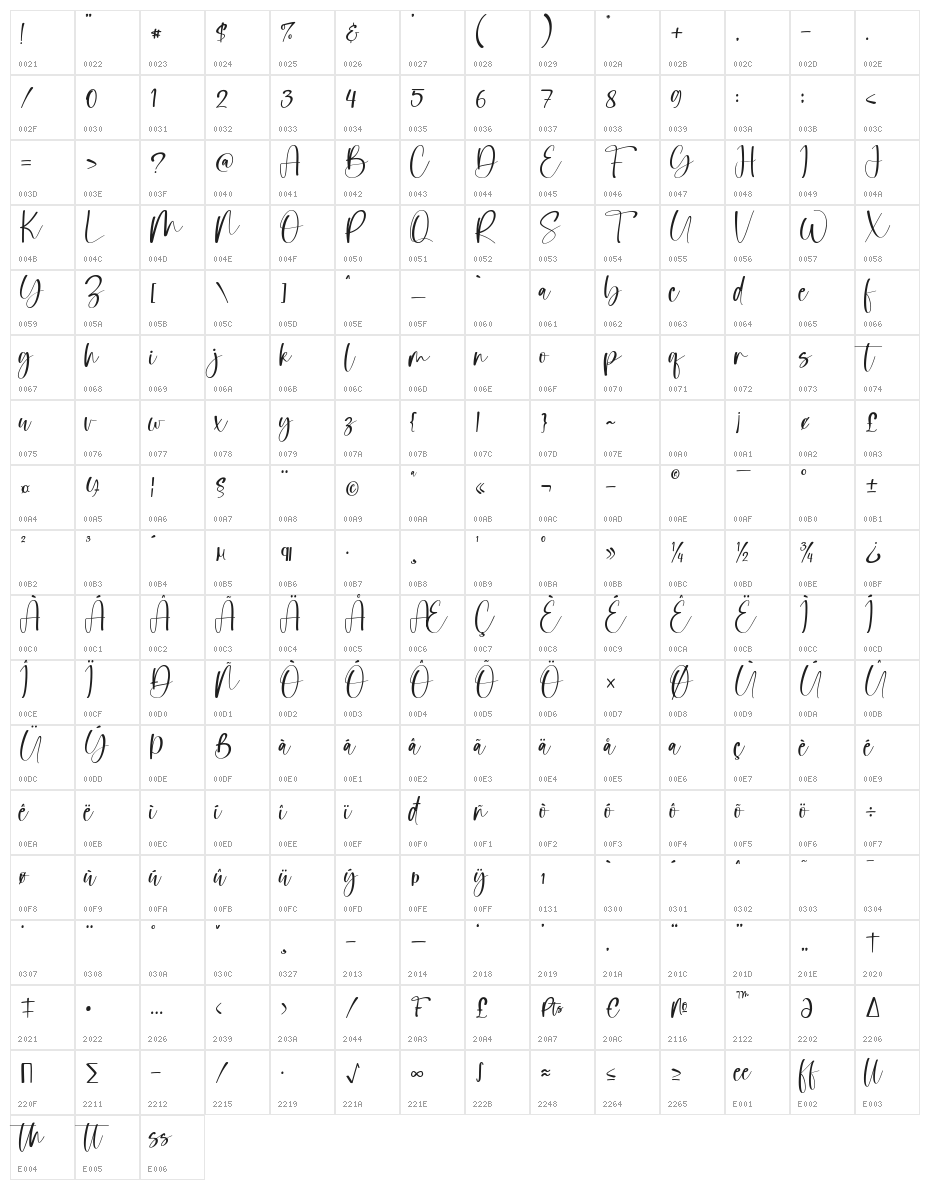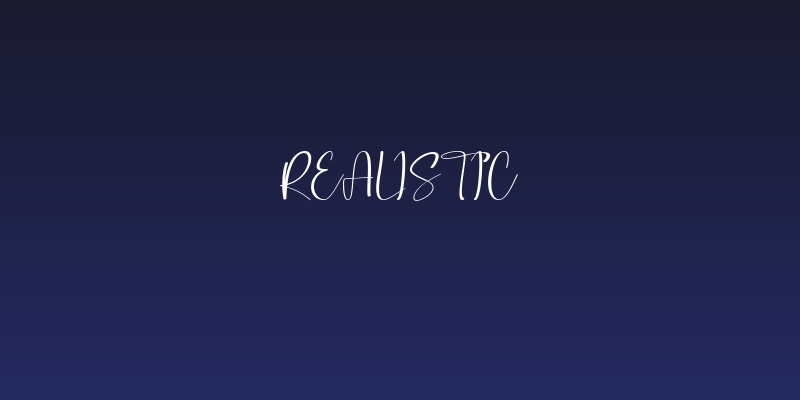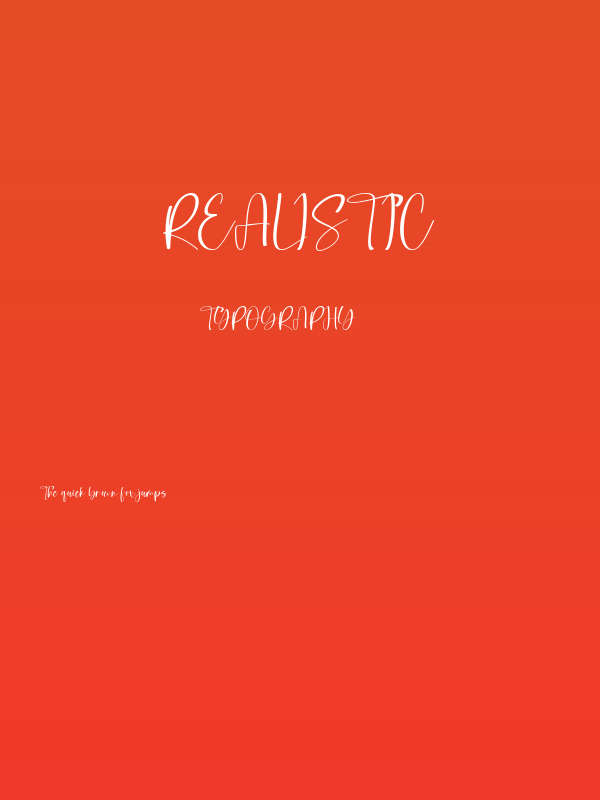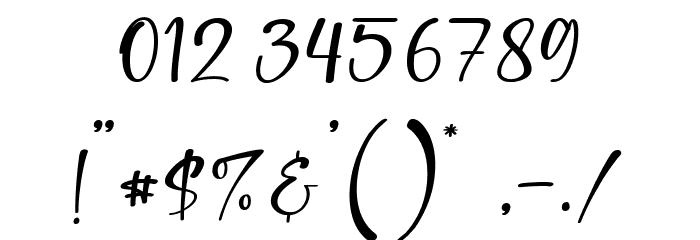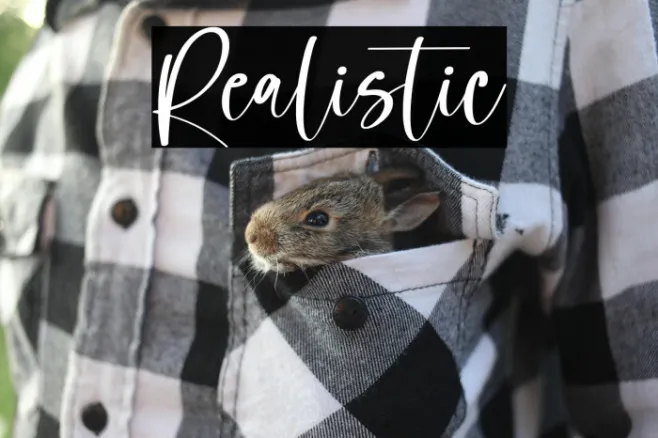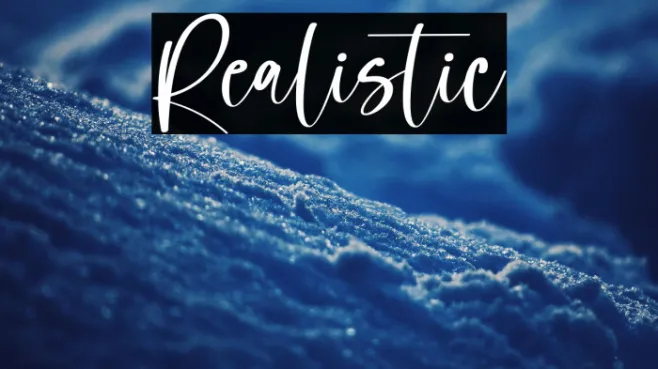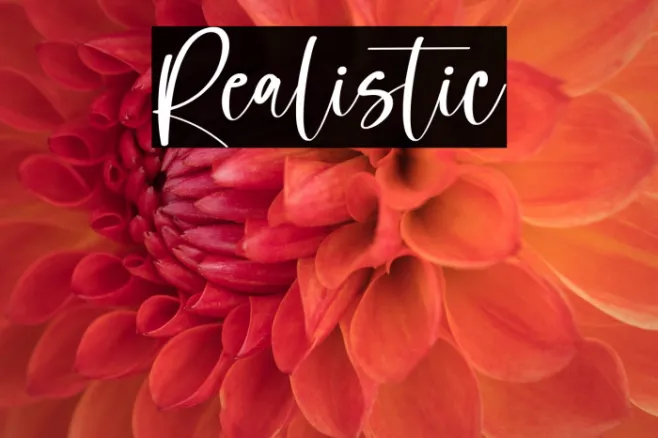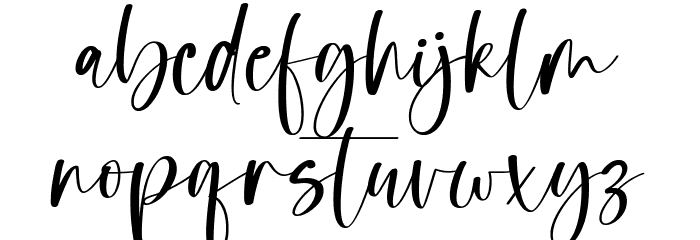
Realistic Font
Realistic Description
This font exudes a lively and elegant handwritten style, characterized by its fluid and dynamic strokes. The uppercase letters are tall and slightly narrow, with a playful loop in some characters, adding a touch of whimsy. The lowercase letters maintain a consistent flow, with smooth connections between characters, enhancing readability. The numerals are clear and distinct, matching the overall style with slight variations in stroke thickness. Special characters are creatively designed, maintaining the font's cohesive aesthetic. This font's charm lies in its ability to convey a personal and artistic touch, making it suitable for a variety of creative applications.